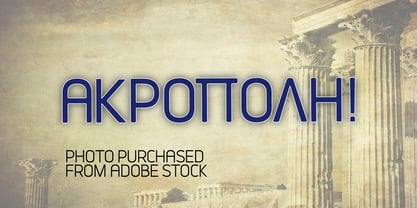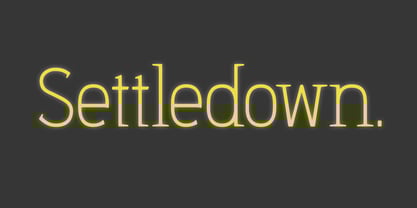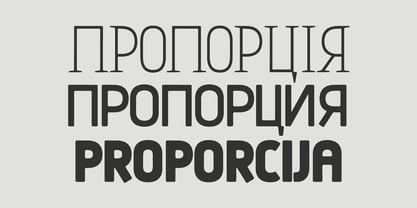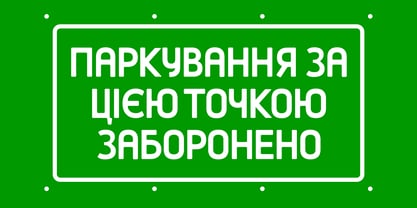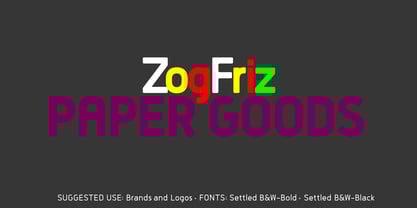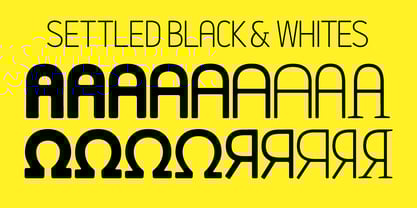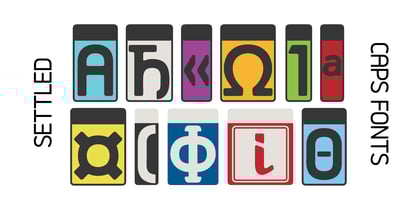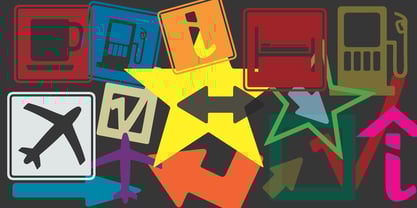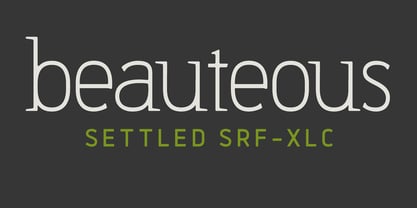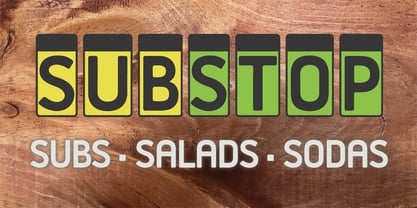
The Settled Font Family was designed by Gary Jaffe and published by Settled Font Foundry. Settled contains 34 styles and family package options. More about this family
Settled is a sans-serif display font whose stems have rounded corner. It is best-suited for applications larger than text paragraphs, such as signage of all sizes, storefronts, headlines, billboards, building signs, brochures, menus, logos, branding, and the like.
The Settled font family includes both black and white and color SVG fonts.
Settled takes advantage of the introduction of color font design, using a new font-naming convention, in order to achieve well-ordered font menu results in graphic design applications.
A font traditionally styled “Black”, is in Settled styled “B&W-Black”. This new naming convention keeps all traditional black and white fonts together in the menu. The color CAPS (caps only) fonts are grouped together; the color CLR (caps and lower case) fonts are grouped together as well. Capitalizing CAPS and CLR makes them easily identifiable in the menu. The inclusion of the word “Tags” indicates that the glyph includes both the letter glyph as well as a multi-colored geometric background, or “tag”.
Settled CAPS and CLR fonts are not accurately displayed until companies and apps update to support SVG color fonts. ADOBE and ADOBE APPS, the intended design space for our fonts, DO SUPPORT SVG COLOR FONTS. So, we will show you the glyphs in PNGs on our page. for now. Display fonts are the favored form, so useful for signage (business, building, billboard, etc), A-frames, news and advertising headlines, brochures, book jackets, menus, and the like.Graphic design has been a gift to me, to pay my way, and to enjoy working. At first using photography in conjunction with vector drawing, letterforms soon became the source of great pleasure as well as painstaking work. For me, letterforms add both beauty and function to life.